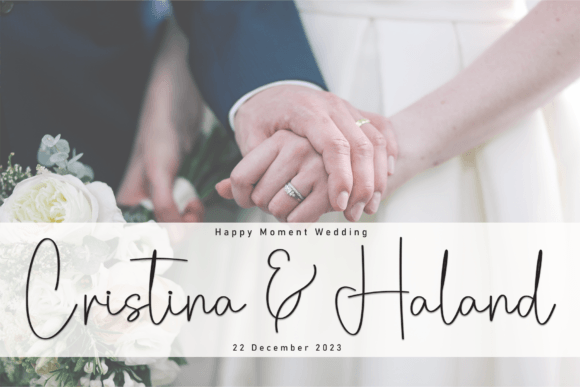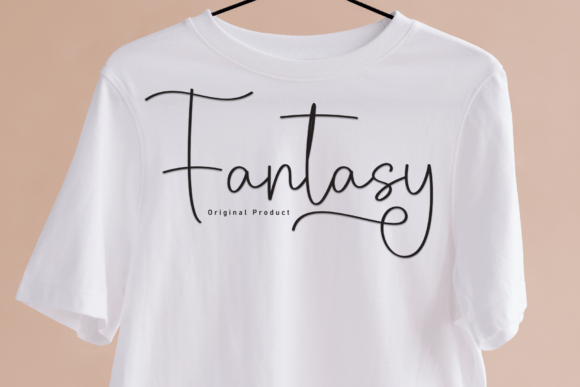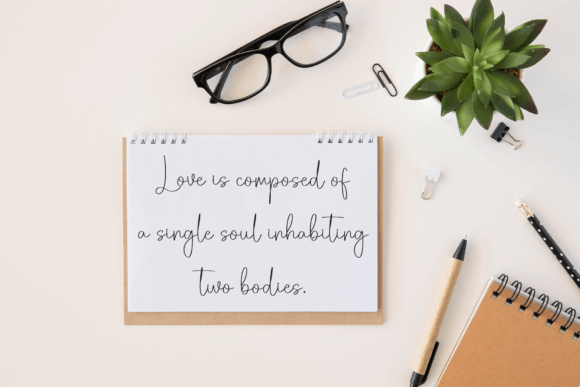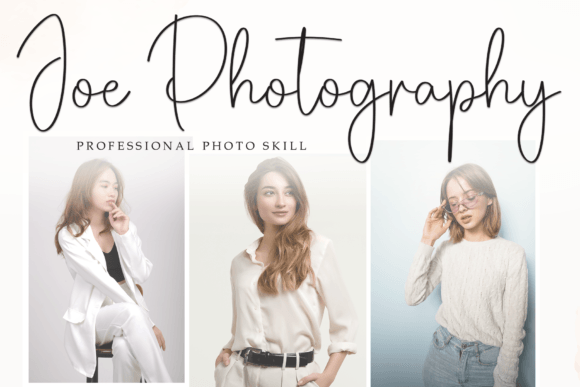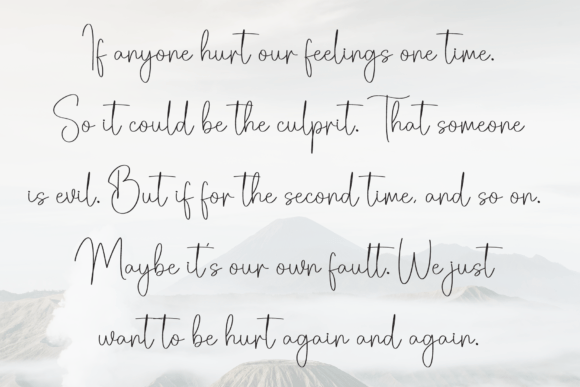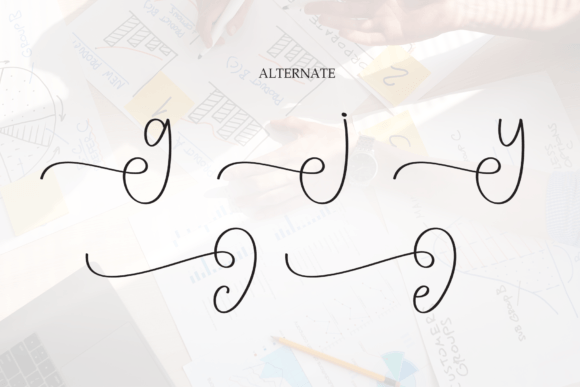
Introduction to Manage Font
As a designer, there’s nothing quite like the thrill of landing on the perfect font for your creative project. You know, that moment when all the elements come together, and your design takes on a life of its own. For me, it was the discovery of Manage Font – a beautiful, handwritten font that instantly elevated my design to the next level. With its classy calligraphic influences and fresh, contemporary feel, Manage Font is the perfect addition to any design resource.
Whether you’re working on a high-end branding project or a simple blog post, Manage Font is a valuable asset that will help you create stunning, professional-looking designs. Its high quality and versatility make it a must-have for any designer looking to take their creative projects to new heights. Plus, with a transparent background, you can easily layer it over other design elements to add depth and visual interest.
Key Features of Manage Font
Honest Review: Manage Font
Tips for Getting the Most Out of Manage Font
Manage Font is commonly used for designing business cards, posters, brochures, and other marketing materials. It’s also useful for creating social media graphics, presentations, and website content.